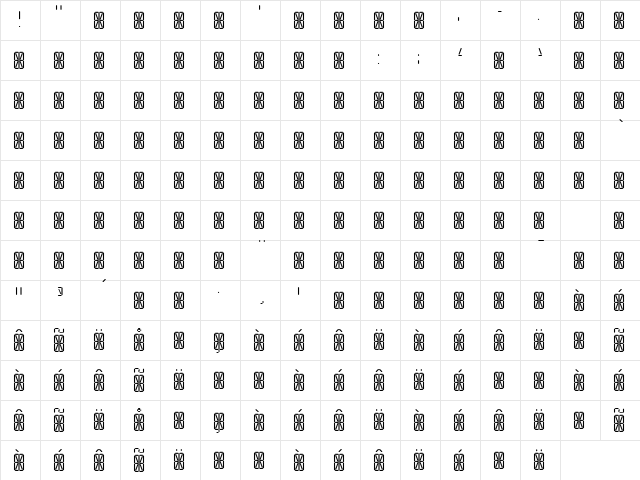
Transponder Grid AOE Regular
Design Context for Transponder Grid AOE Typeface
Transponder Grid AOE is a composed and adaptable typeface that performs quietly and consistently across a wide range of design contexts.